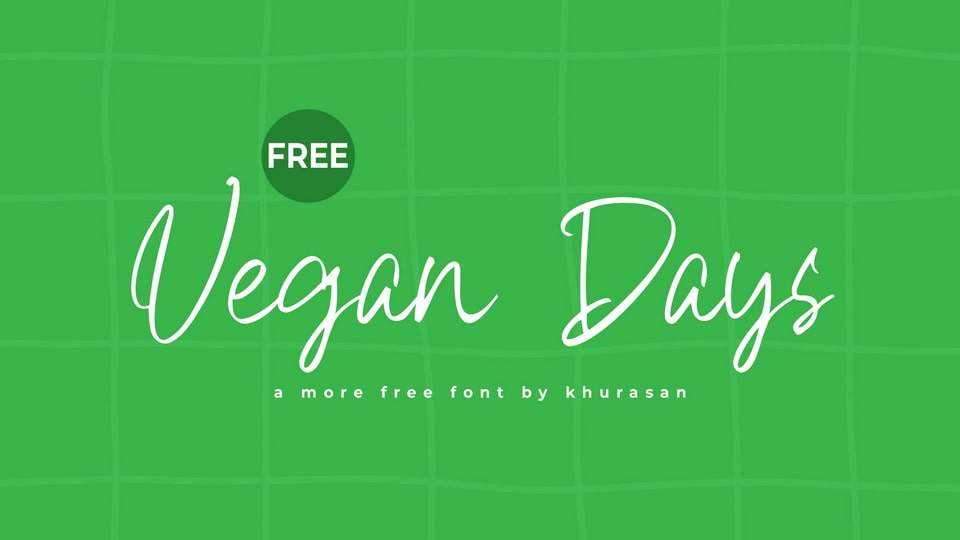
Download Vegan Days font, a casual handwritten script typeface designed to bring a fresh, natural touch to your designs with its smooth strokes and flowing letterforms.